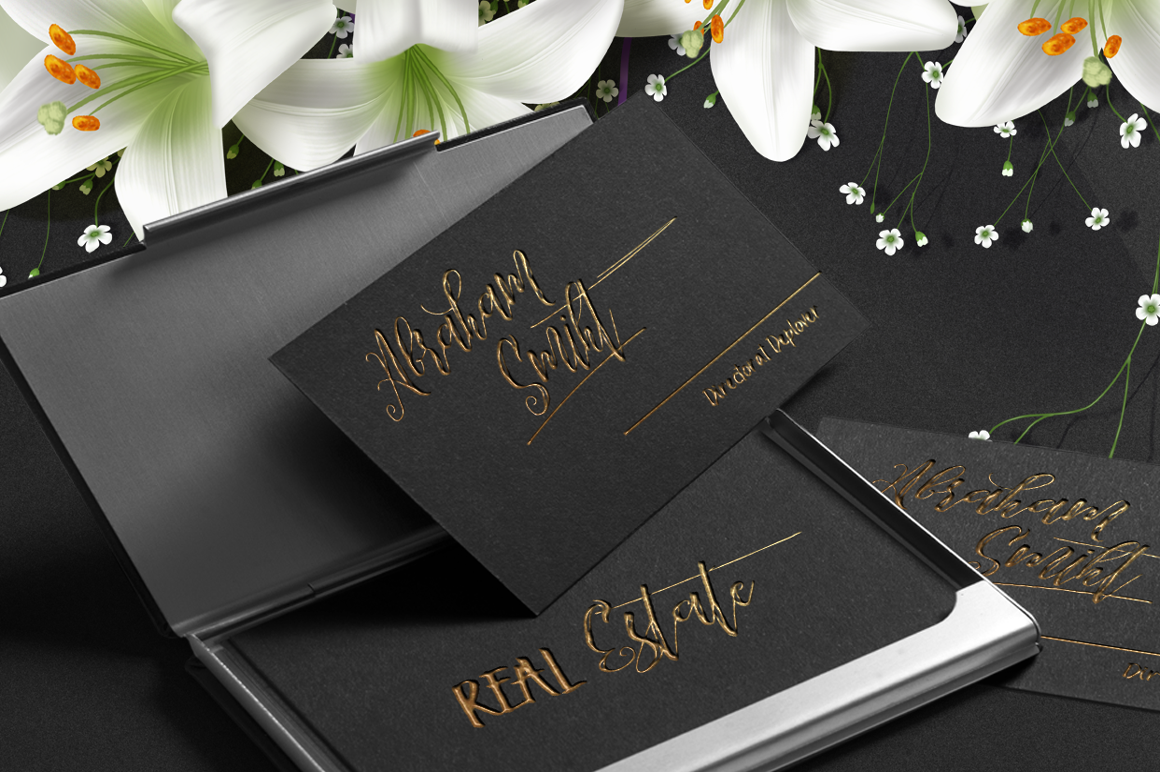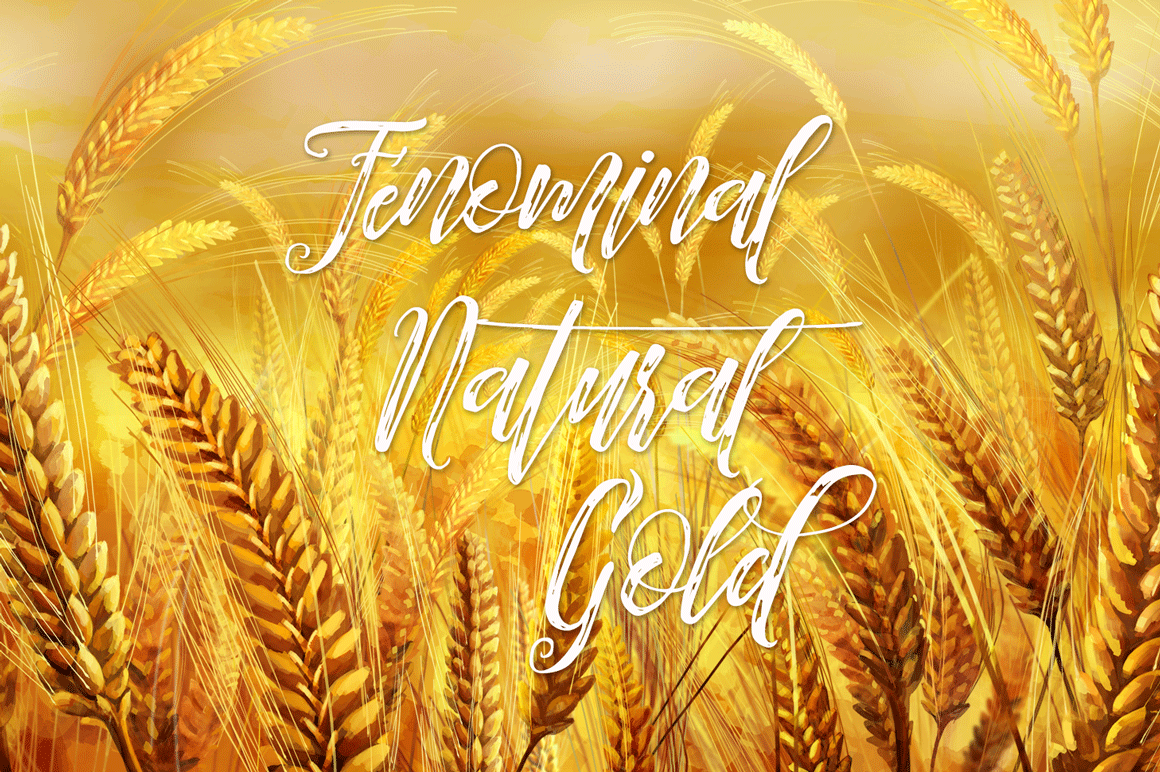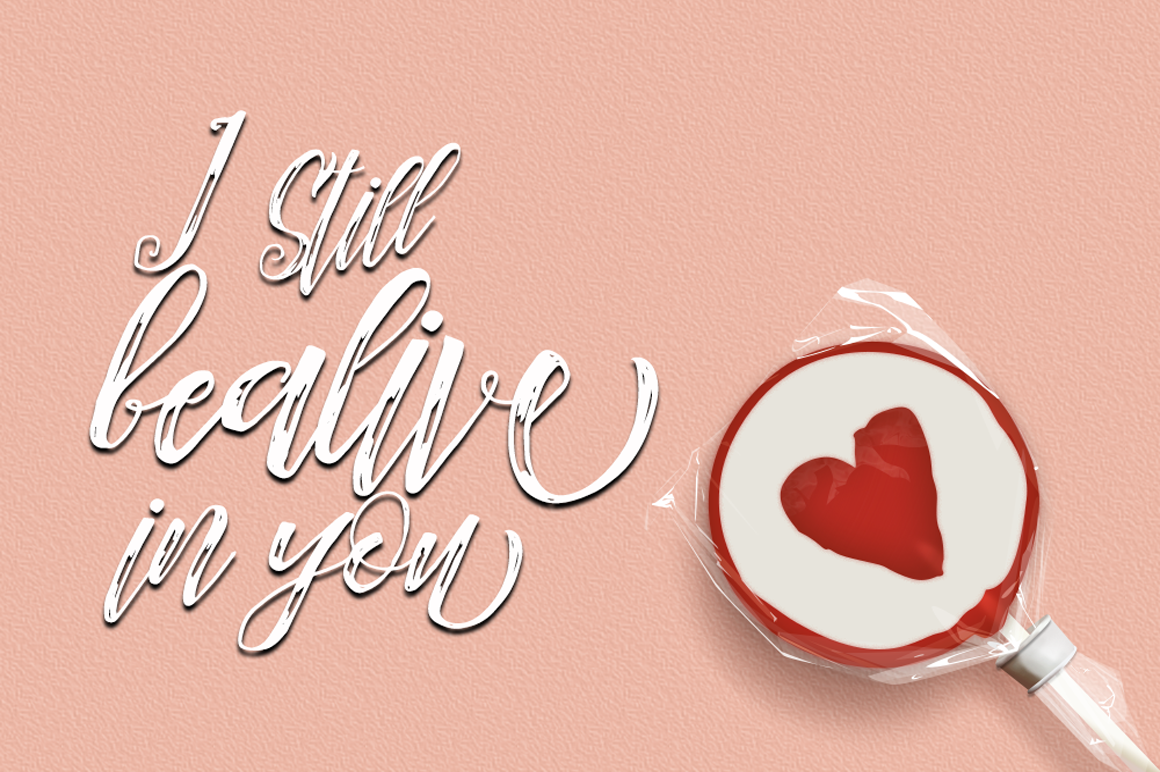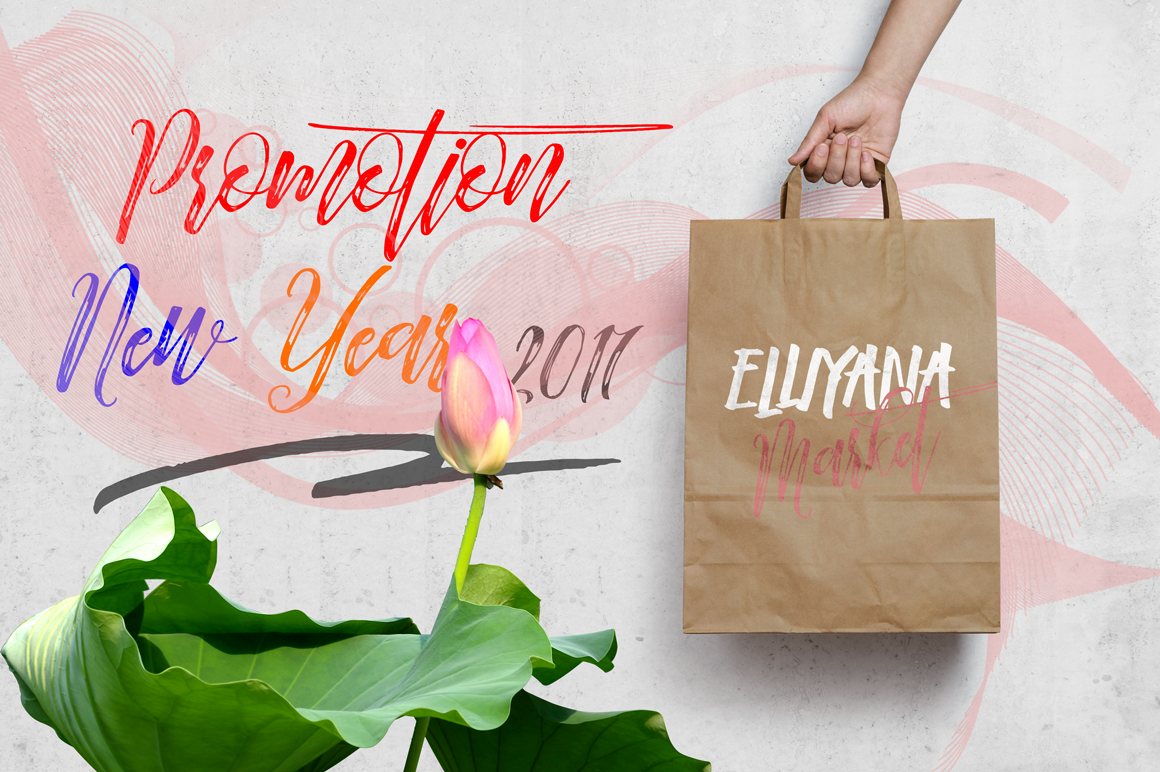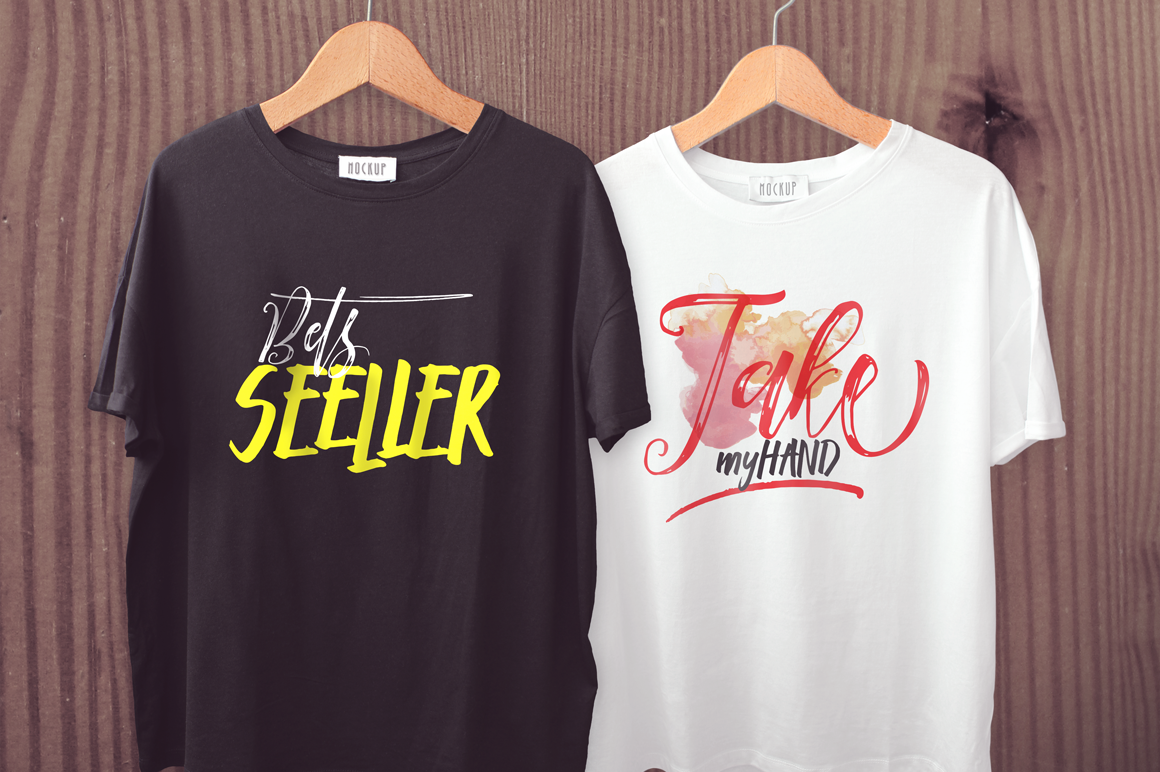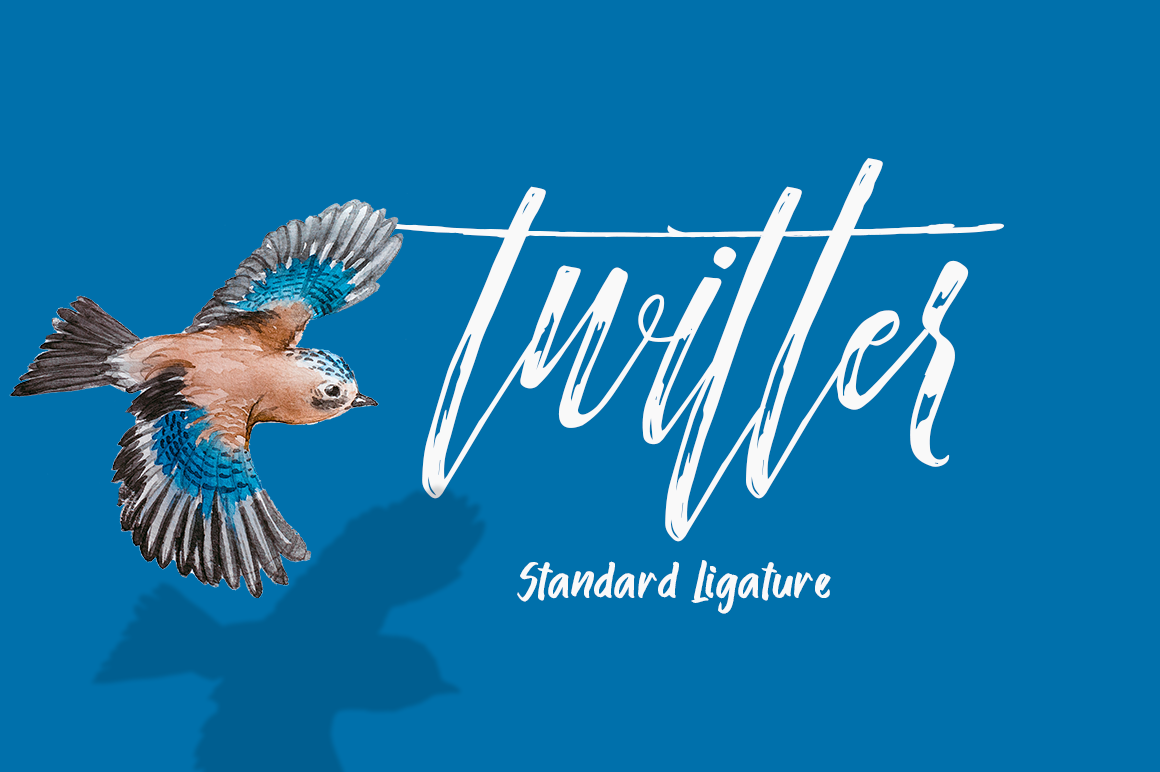
Arthands Font
About Arthands Font
This font duo consists of Arthans and Brokelly, 2 beatufiul fonts that have a very natural flow, which makes them very suitable for personal & craft projects.